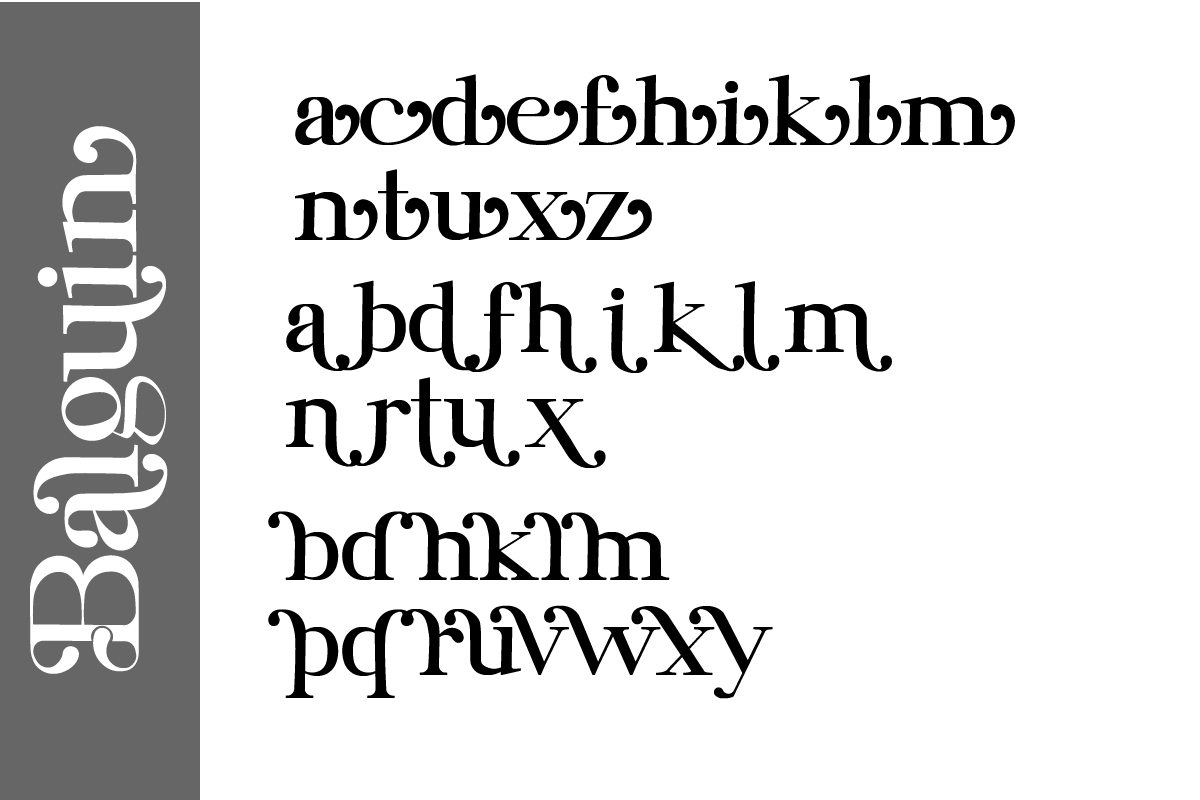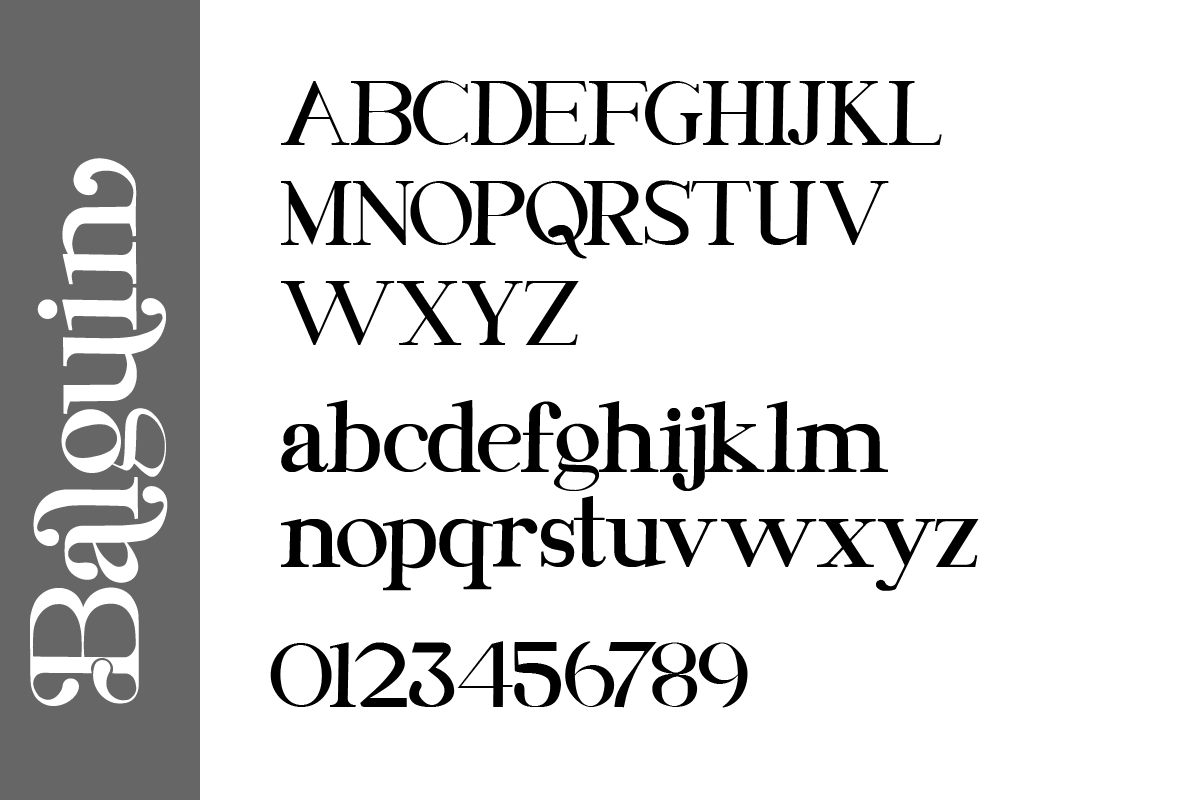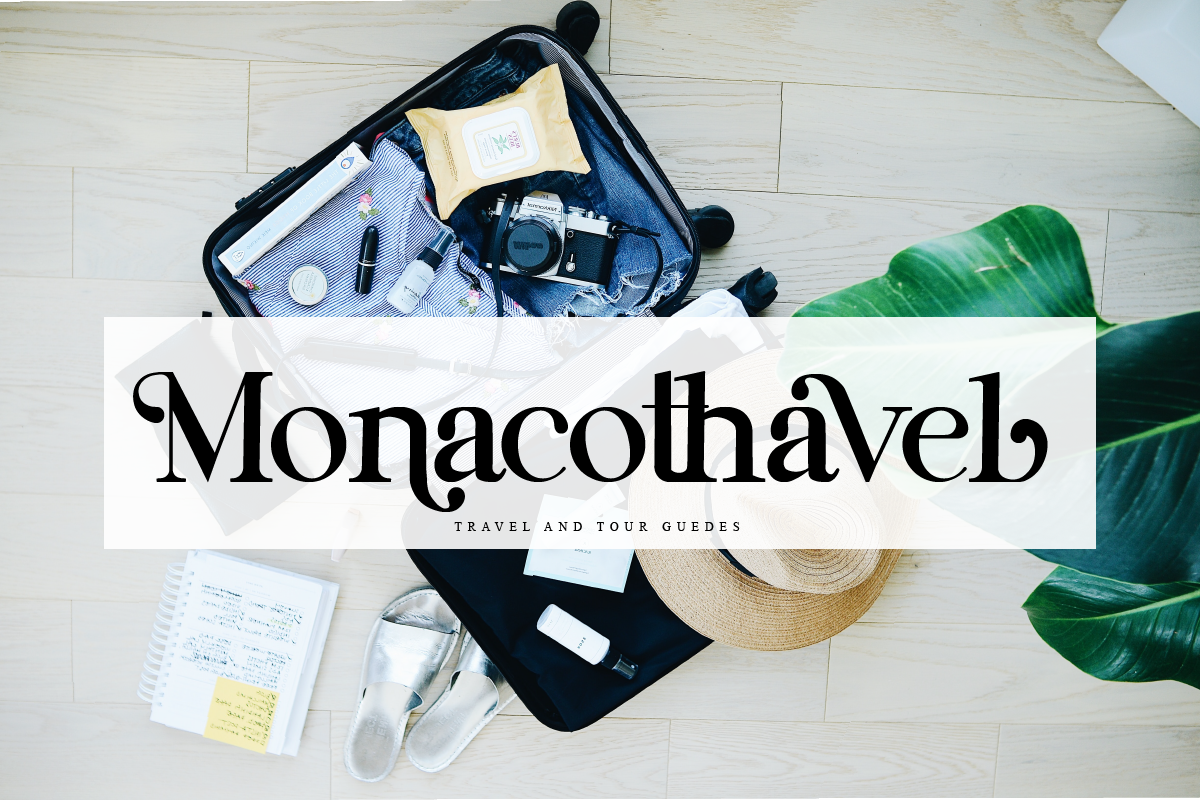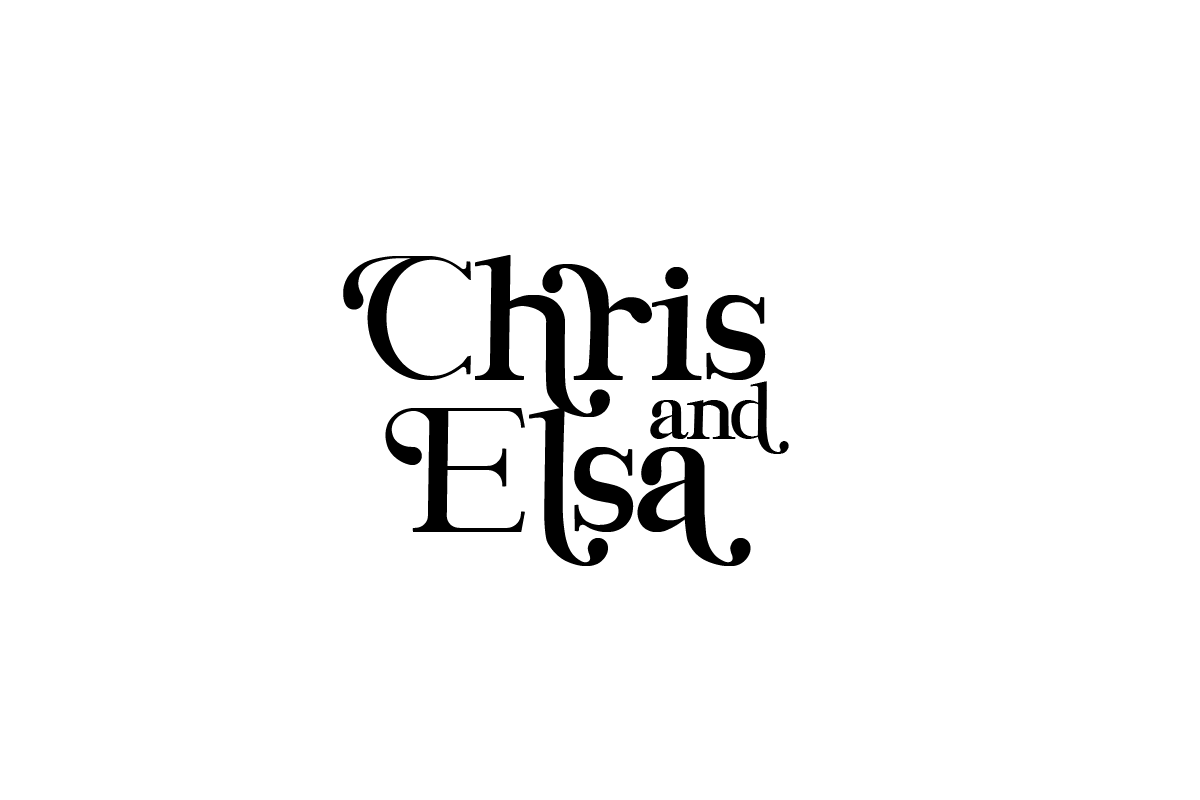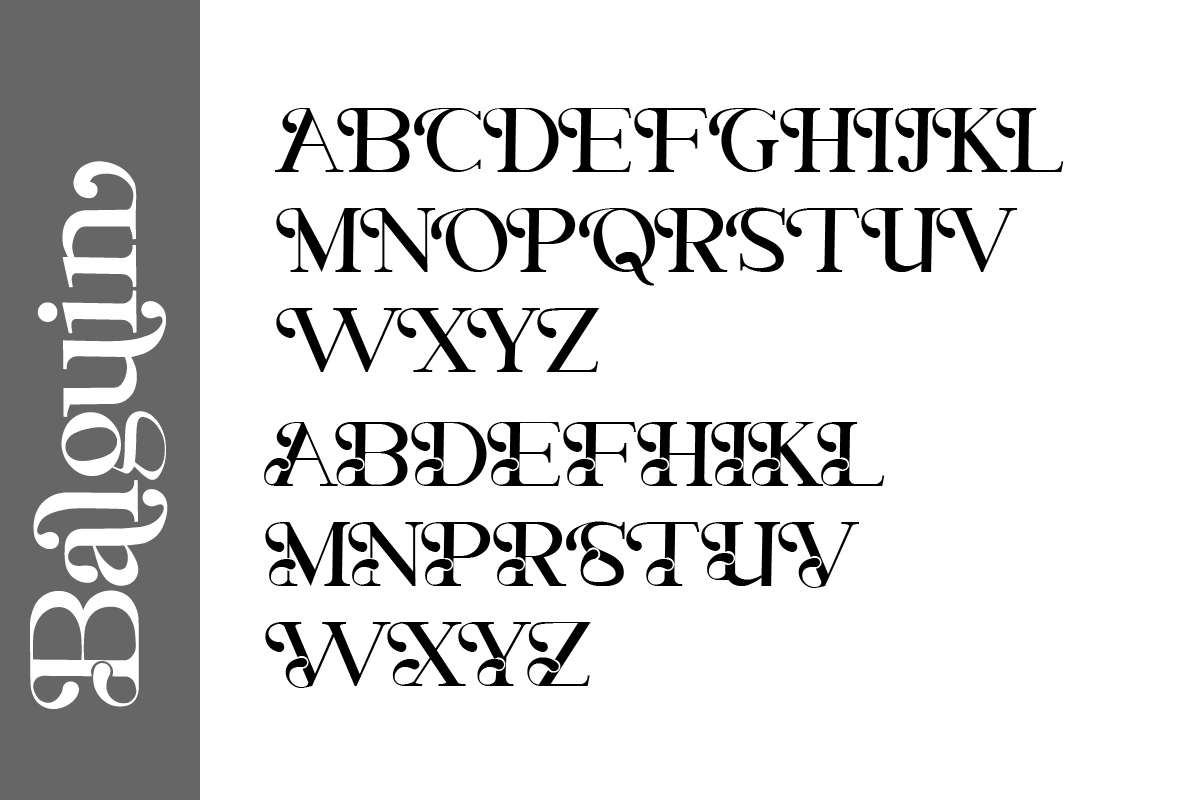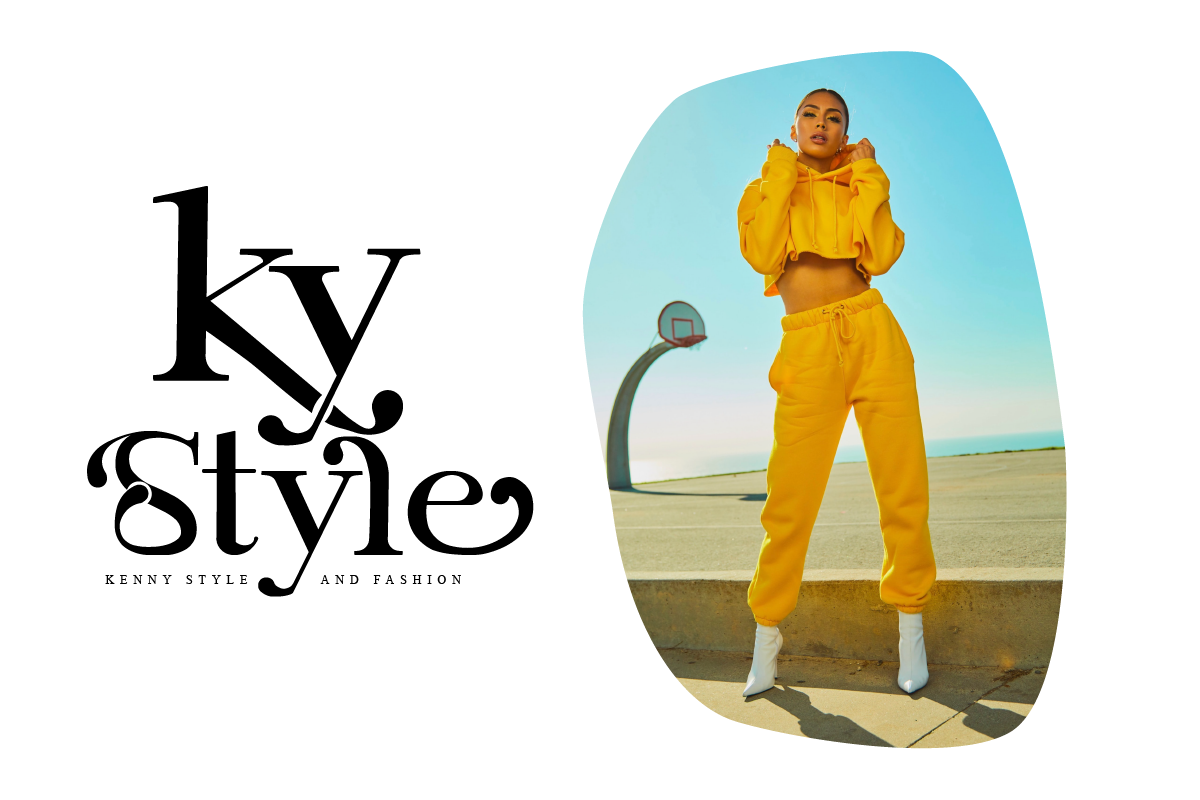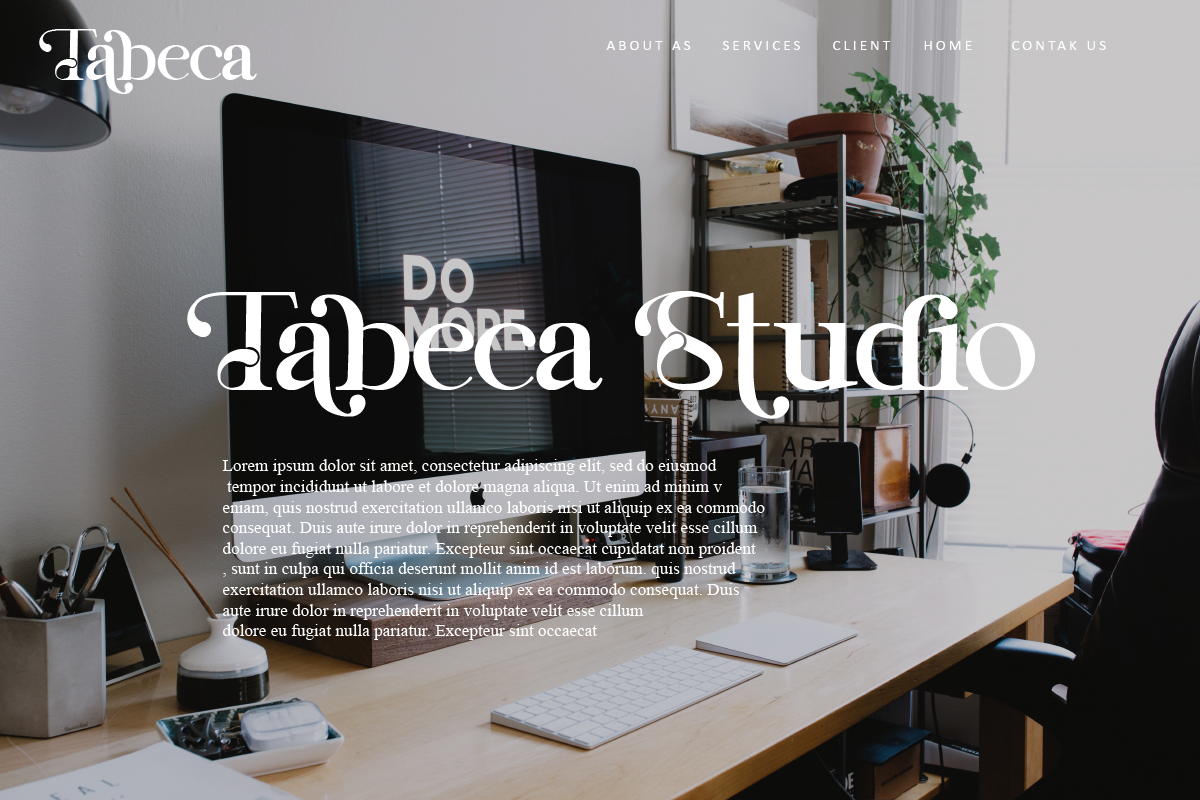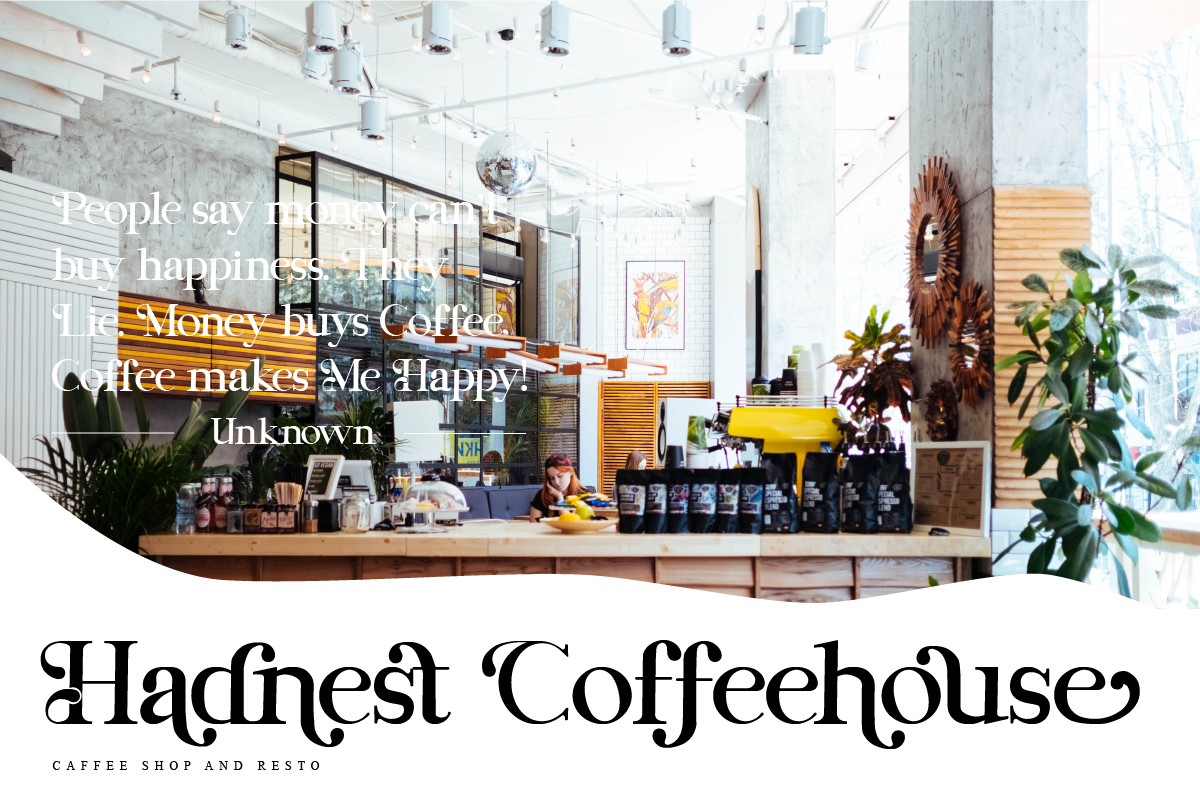
Balguin
Balguin is a unique, simple, clean and well appointed display serif. It is perfect for gorgeous logos, titles, web layouts, fashion magazine and branding. It looks very nice and classy in an all-caps with a wide-set spacing, and also very beautiful on its own in capital and lowercase letters. ncluded Features: Font Weight: Regular, File Format: TTF, OTF, Extras: Uppercase Multilingual Letters, Lowercase Multilingual Letters, Numbers & Punctuation, ligature + Alternatives.